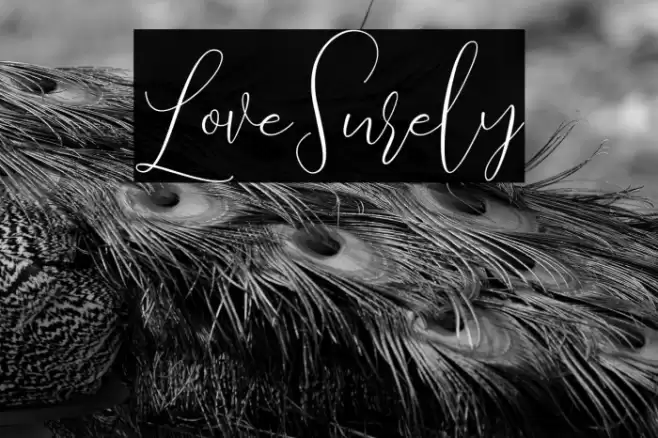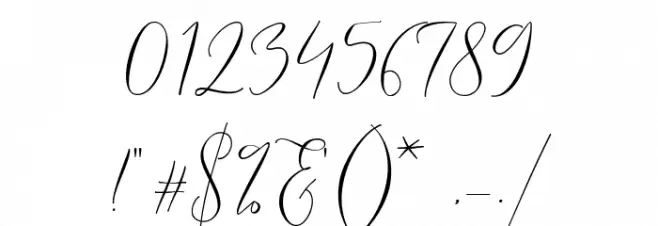
LoveSurely Font
LoveSurely Description
This elegant script font features flowing, cursive letters with a modern touch. The uppercase characters are tall and slender, with graceful loops and swashes that add a sense of sophistication. The lowercase letters are more compact, maintaining a consistent style with subtle variations in stroke width. Numbers are designed to complement the letters, with a similar flowing style. Special characters are included, each crafted with the same attention to detail. The overall appearance is both stylish and readable, making it suitable for a variety of design projects.
A modern, elegant script font with flowing cursive letters and graceful swashes from Valentine's Day fonts.